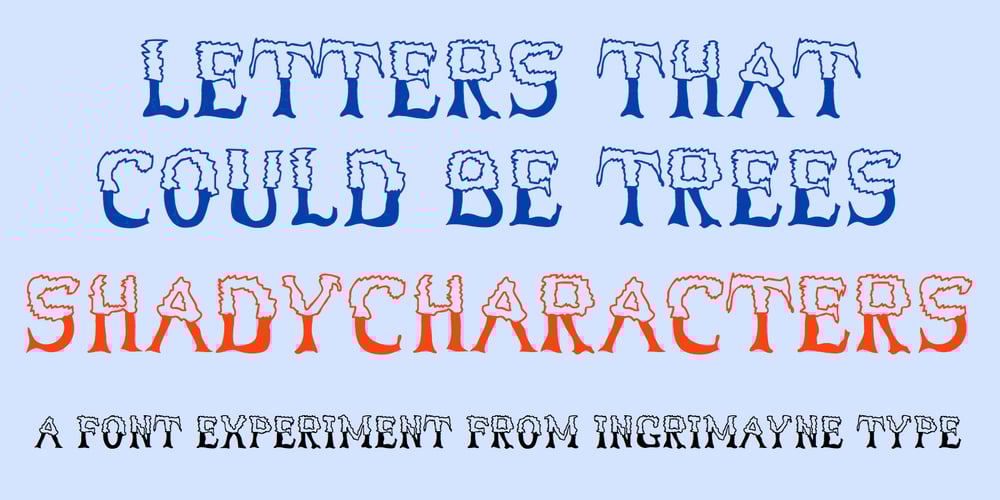
ShadyCharacters
ShadyCharacters font
ShadyCharacters Font Family was designed by Robert Schenk and published by Ingrimayne Type. ShadyCharacters contains 2 styles and family package options. ShadyCharacters is an all-caps font with a ziggy, hollow top and a solid bottom. With lots of imagination, you might see the letters as tree-like, hence its name. The ShadyCharactersInside font can be layered over letters of ShadyCharacters to fill in the tops with color.